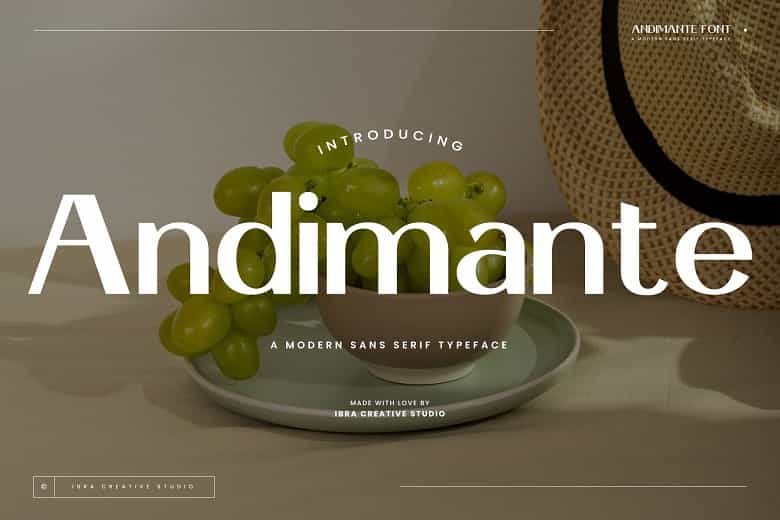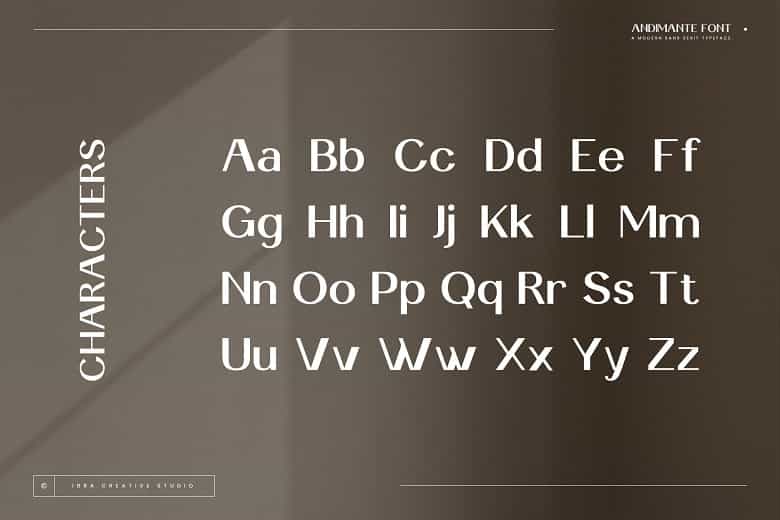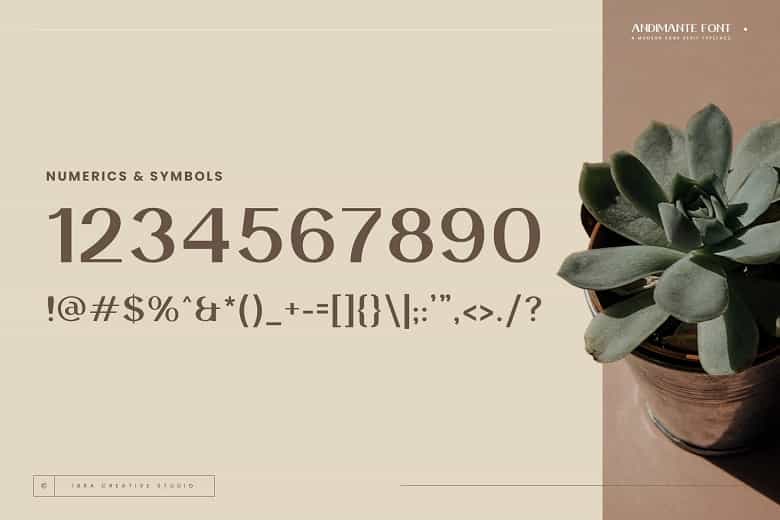
Andimante is a futuristic sans serif font, it sets the new standards of modern design with its minimalistic and geometrical shapes and a hint of elegance. This is a typeface that is highly deliberate in its design, every single letter oozes professionalism and effectiveness and that is why it is perfect for use in both digital and print media such as screen displays and publications.